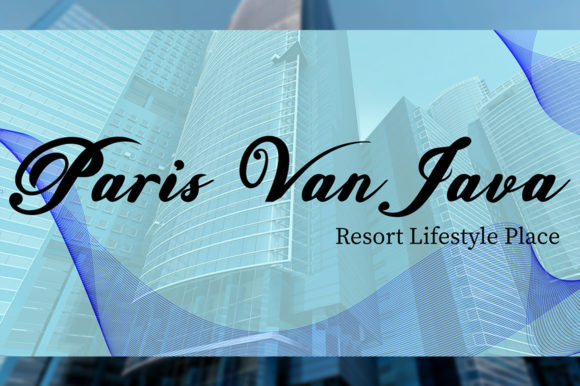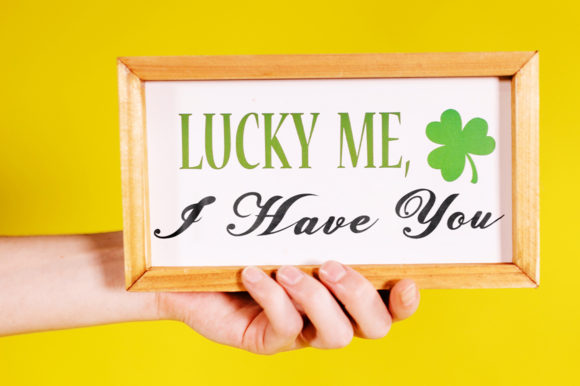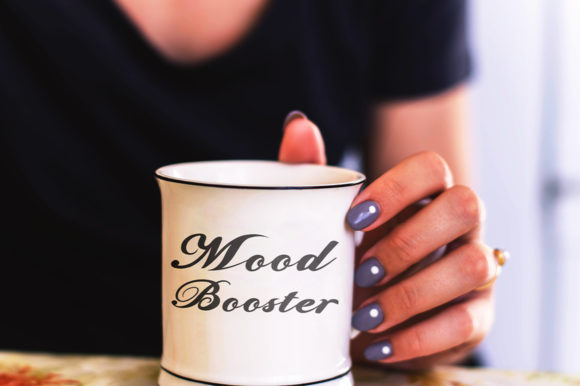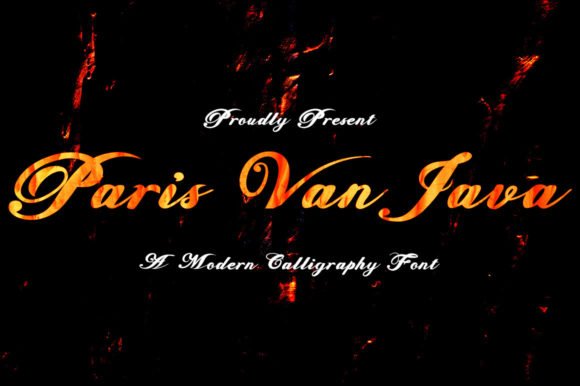
Introduction to Paris Van Java Font
Paris Van Java is a smooth handwritten font, elegant and flowing.
It has a beautiful and balanced character and as a result, fits into a wide set of designs Add it to your most creative ideas and watch how they come to life.